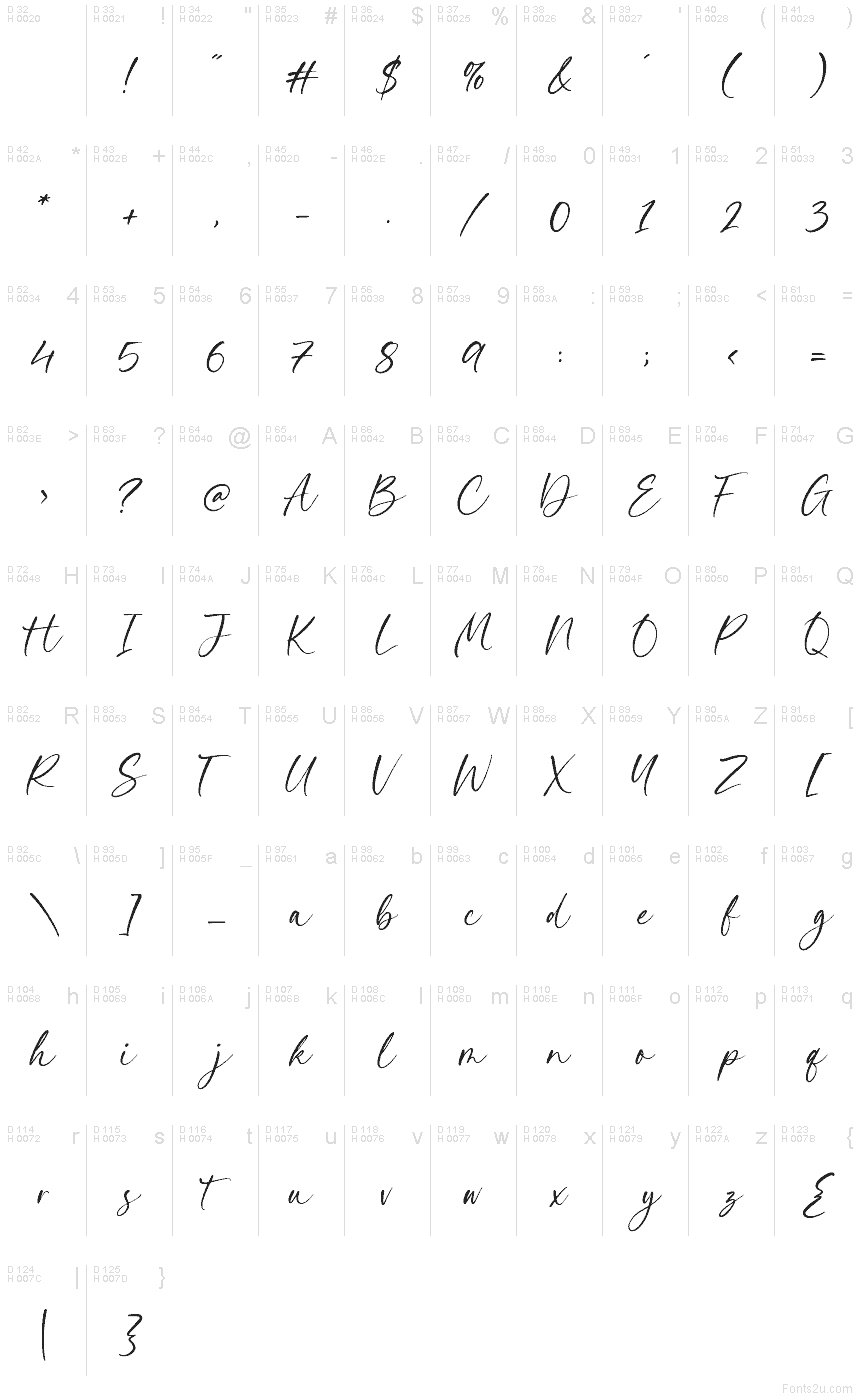
Asterika
Asterika font designed by Balpirick Studio is a wonderful handwritten connection of cursive letters where elegance and style are at their peak. The font’s flowing stroke allows the text to have a seamless appearance with smooth junctions that make use feel it is almost created by hand. The modern aesthetic adds lots of artistic flair and prominence to the project.